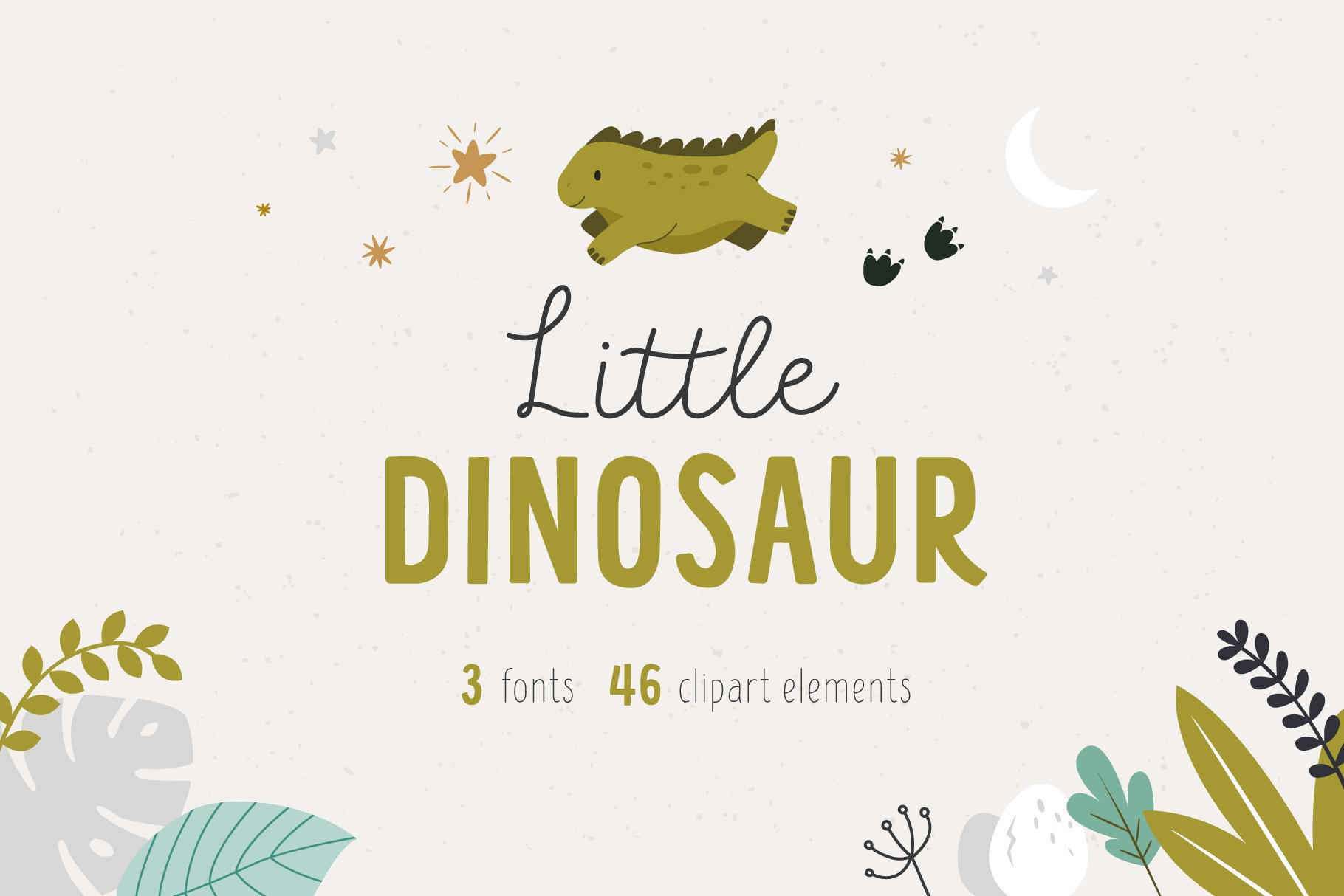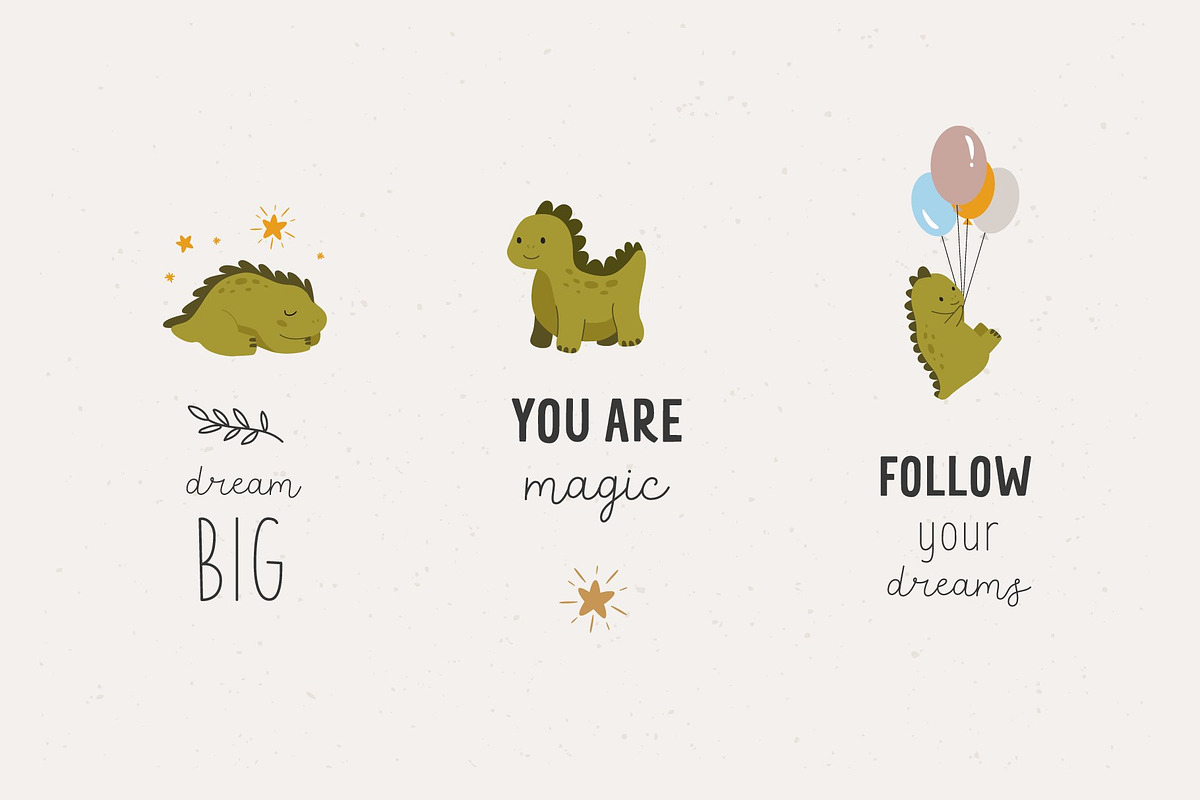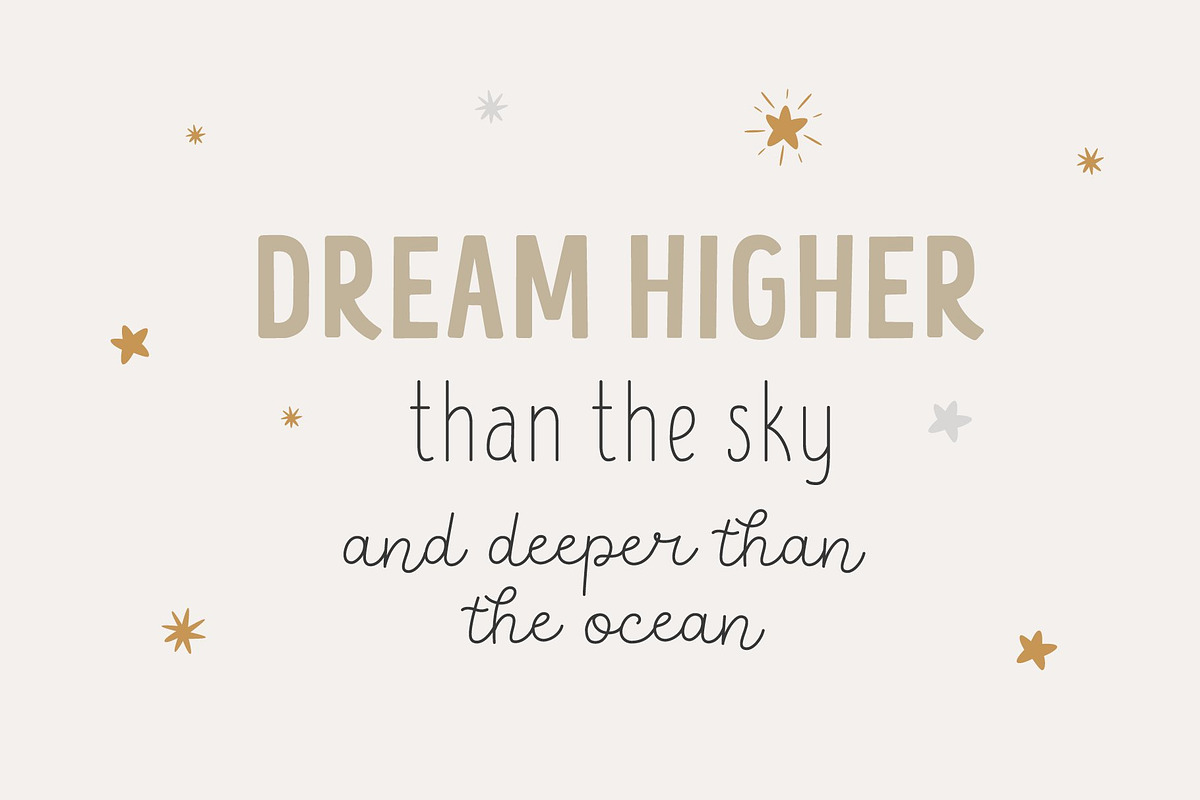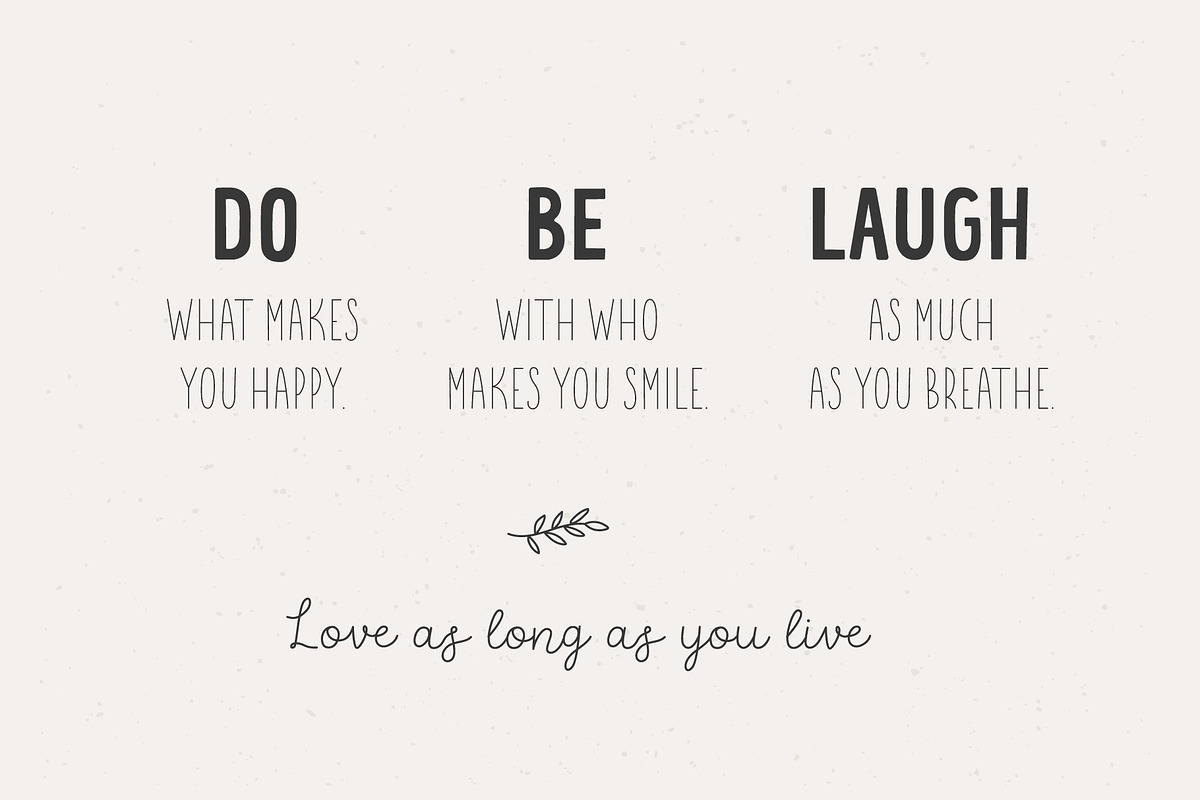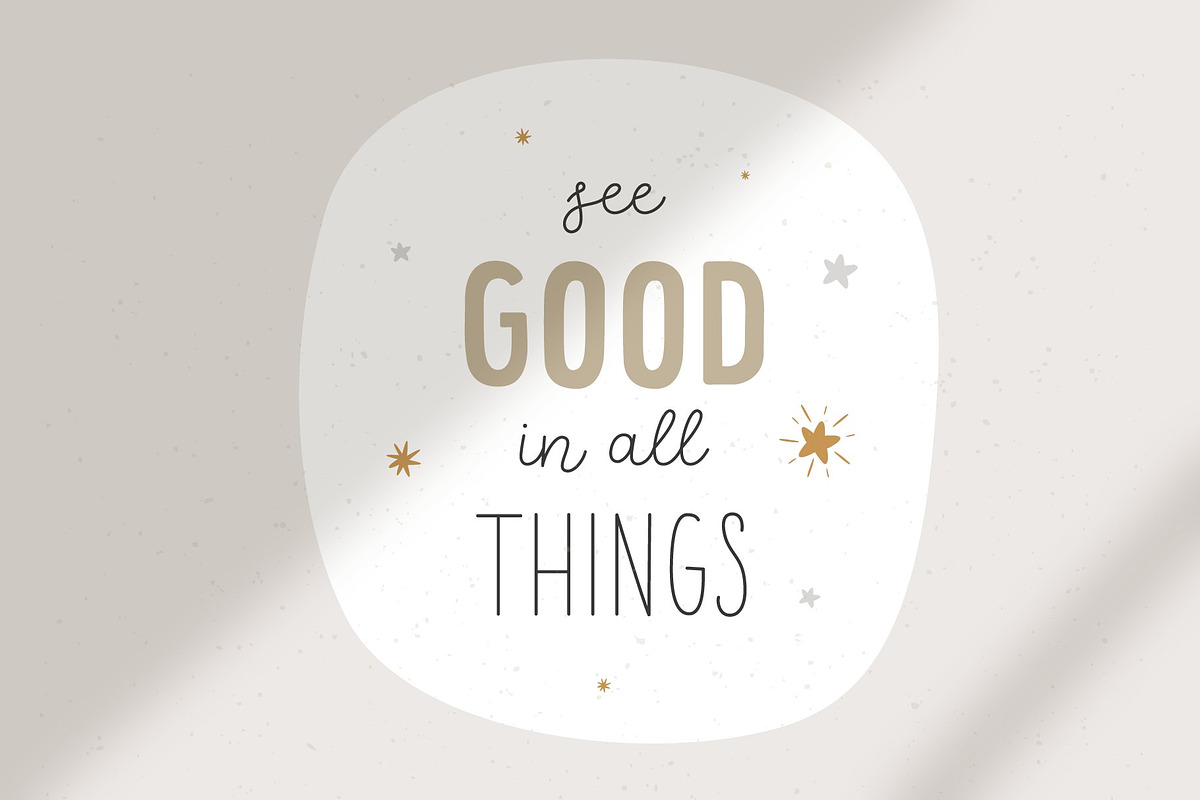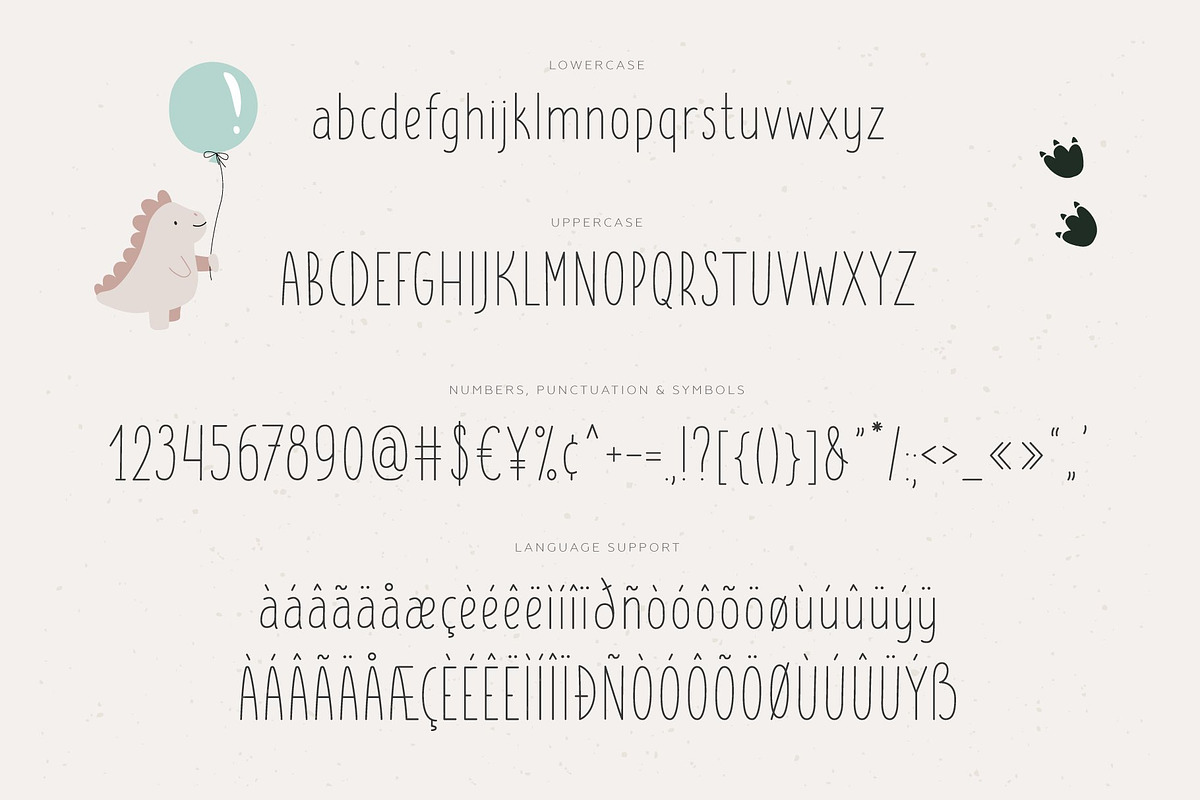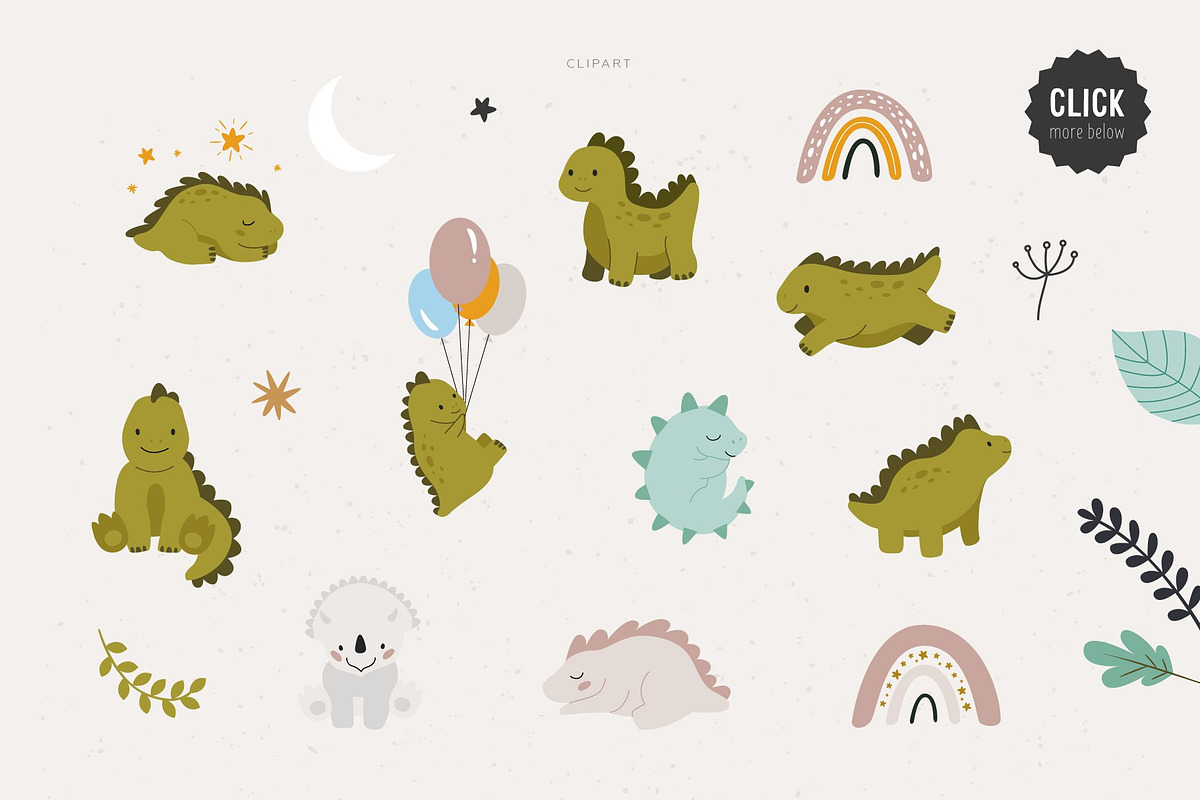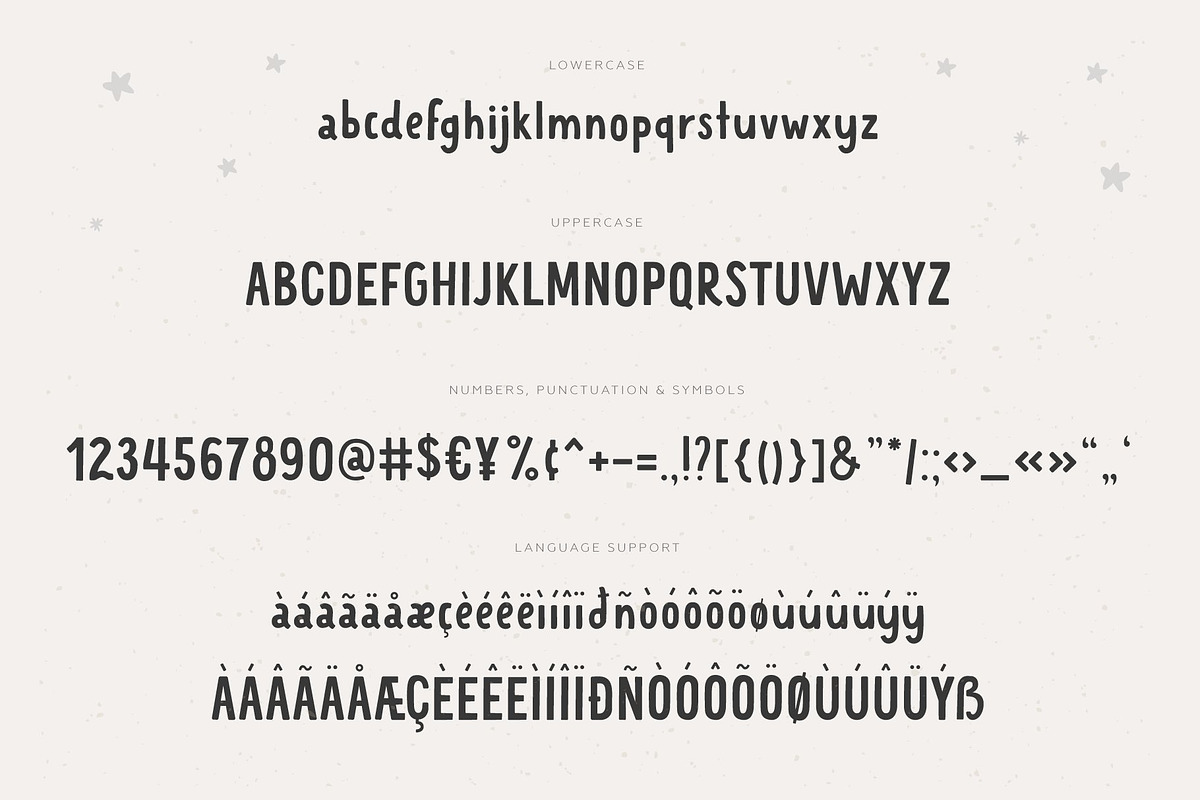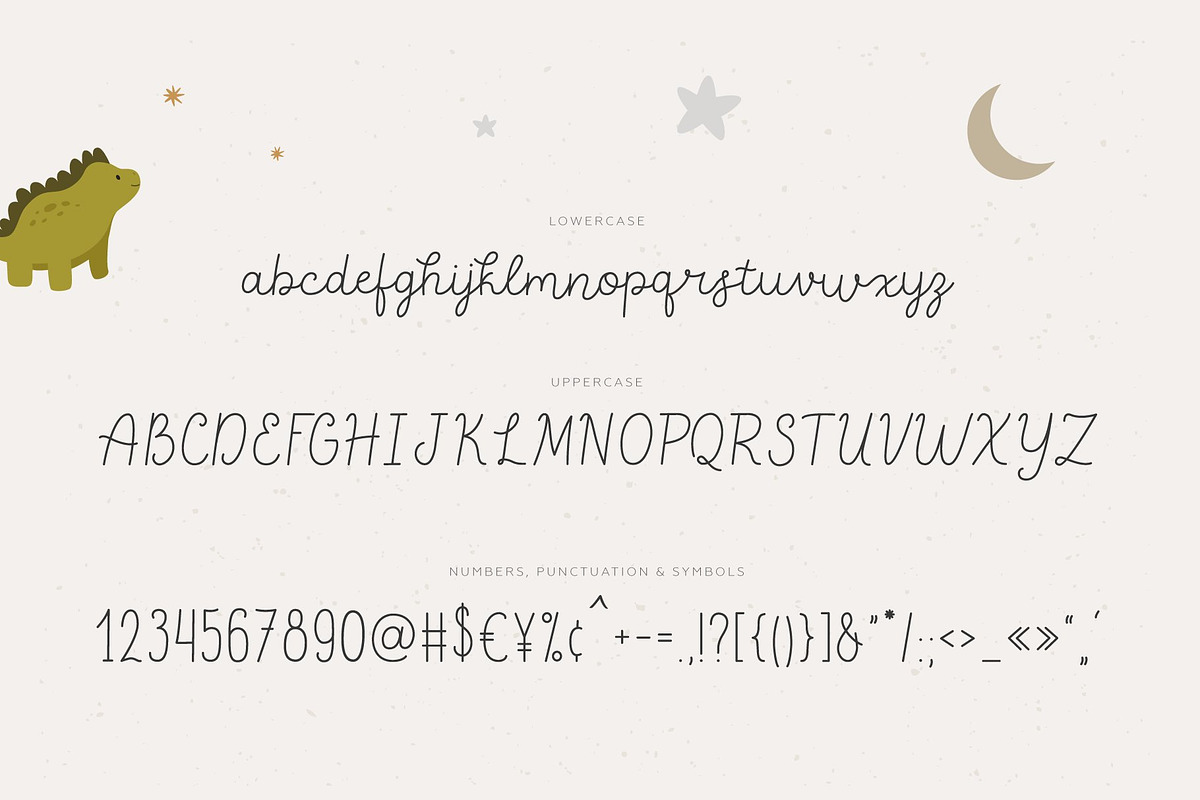
Little dinosaur | Cute Font
Hello! I'm very happy to present my font Little Dinosaur! Little Dinosaur will be perfect for books, greeting cards, toys, posters, baby clothing, picture books or anything that requires a fun and happiness look!
This font is very cute and I love how juvenile and playful it is. However I do continually run into issues with the lowercase letter "s" as it simply doesn't connect in a natural way to many of the letters. I think some alternates for the "s" and some glyph work for the letters that produce wonky connections would make this a 5-star font.